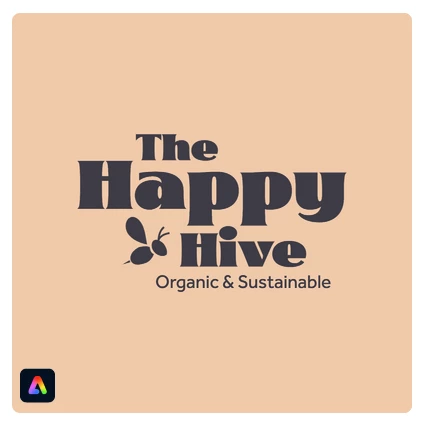
What font would pair well with Glodok?
So in line with what I said, you could restrict your choices by using the filters in Adobe Fonts
and choose from the list.
If you scroll down the Glodok entry on Adobe stock website, you'll see the "popular templates using Glodok" (for adobe express.
This is what they show.
So bang on 🙂
It really depends what you will be using the other typeface for. But I am assuming that Glodok would be for headlines or titles, and you need a secondary typeface for copy text? I would then recommend an easy to read rounded geometric, so it fits without clashing but still legible.
Now, I say that, but I am a great believer that font pairing shouldn't the end all of font choices. By that I mean, I would consider a mutual attraction between two fonts only after the other parameters like: type of text, size of text, line lengh, contrast on the page, and also other aesthetic choices like "mood" of the piece (funky, professional, retro) which would entre consideration prior to pairing.
By suggesting a font pairing, I am making assumptions, but you'll have to compromise so it fits the text the font is suppose to "represent". I hope it makes sense.